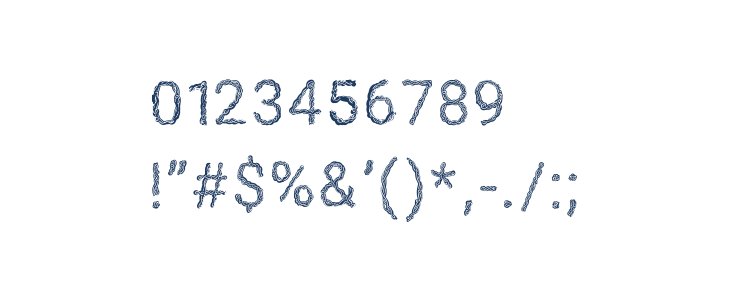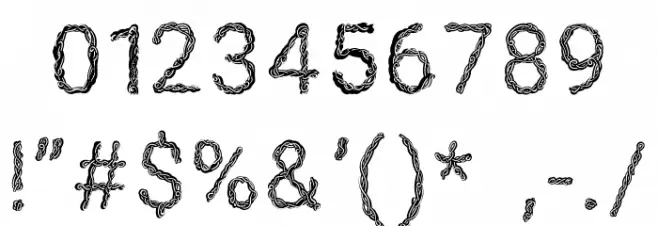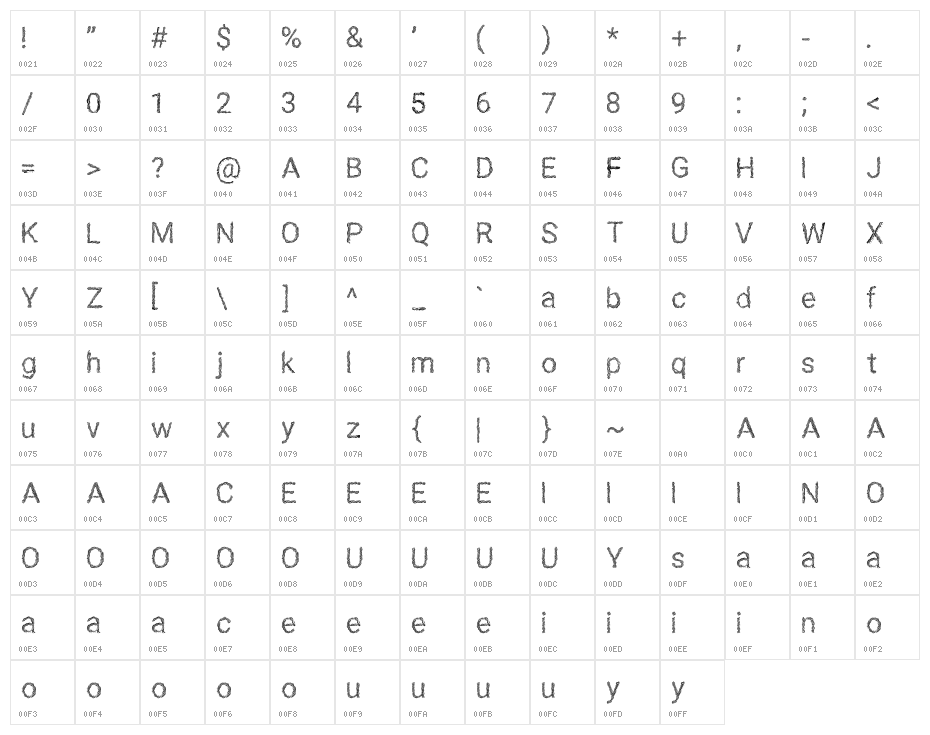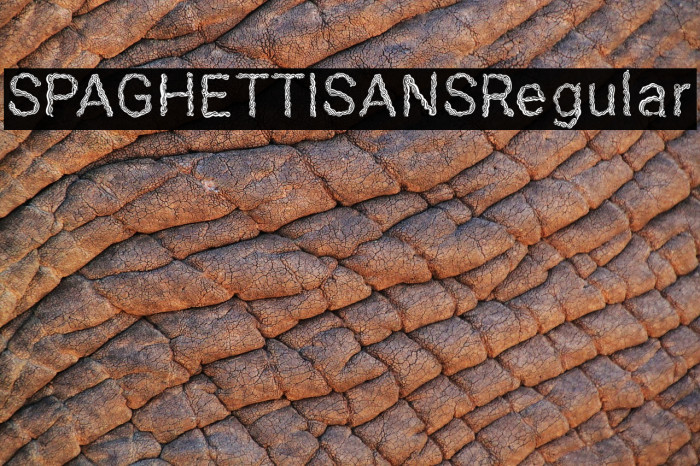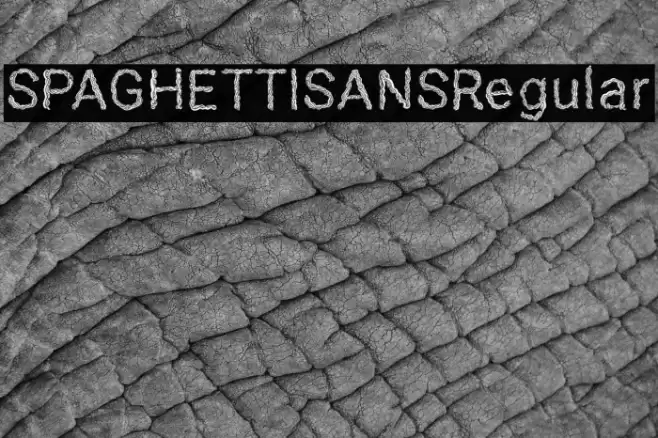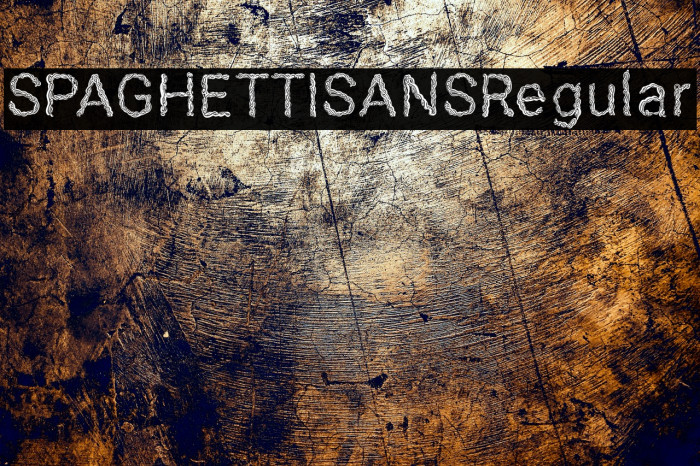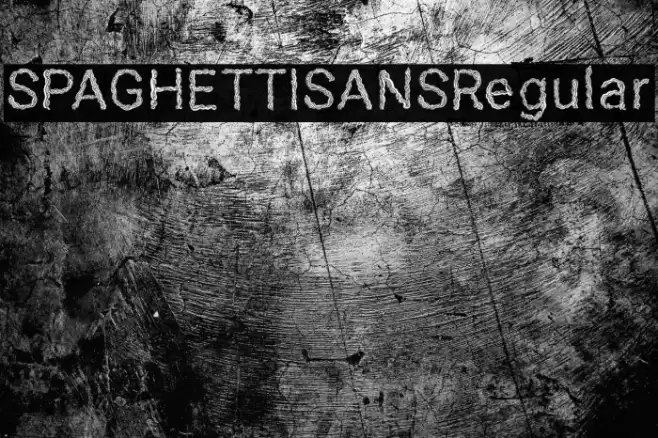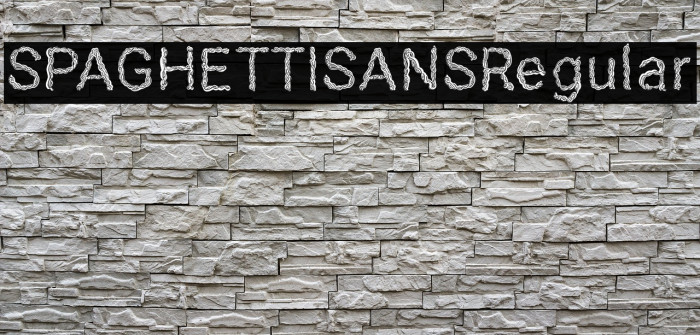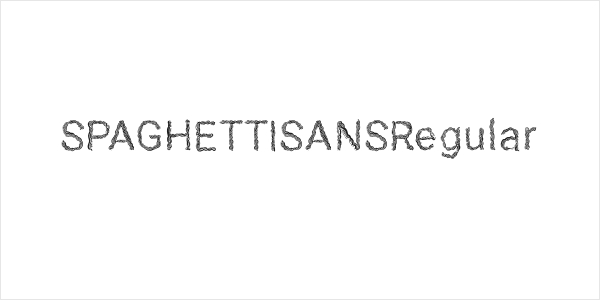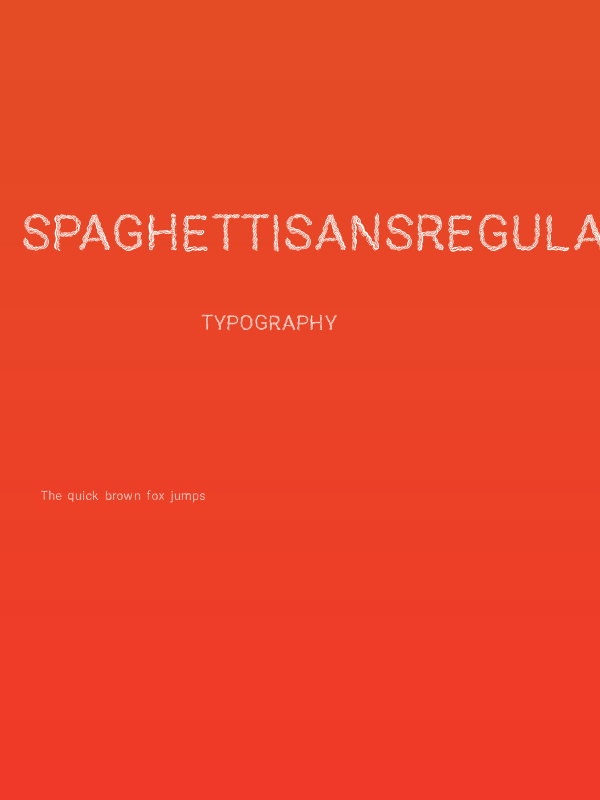
SPAGHETTISANSRegular Font
SPAGHETTISANSRegular Description
This font features a unique and playful design, resembling strands of spaghetti twisted into letterforms. Each character is intricately detailed, with a hand-drawn appearance that adds a whimsical and artistic touch. The letters maintain a consistent height and width, ensuring readability despite their decorative nature. The font includes a full set of uppercase and lowercase letters, numbers, and a variety of special characters. Its distinctive style makes it suitable for creative projects where a fun and informal look is desired.
| Overall Style | Whimsical, Artistic |
| Use Case | Logos, Posters, Creative Titles |
| Proposed Projects | Ideal for children's book covers, playful branding, food-related designs, and creative posters. |